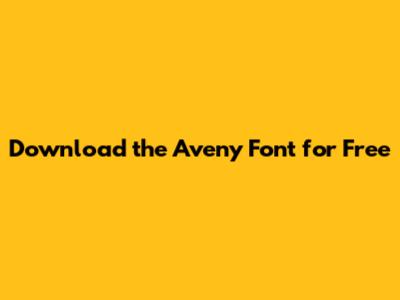
Hey design enthusiasts, gather 'round! Today, we're diving deep into the world of typography to talk about a font that's been making waves: the Aveny font. If you're on the hunt for that perfect typeface to elevate your next project, you're in the right place, guys. We're going to explore what makes Aveny so special, where you can snag it for free, and how to use it like a pro. Get ready to boost your design game with this gorgeous font!
What's So Great About the Aveny Font?
So, what's the big deal with the Aveny font? Well, let me tell you, this font is a real showstopper. It's a sans-serif typeface, which means it's clean, modern, and super versatile. Think elegant lines, a slightly geometric feel, and just the right amount of personality. The Aveny font is perfect for a wide range of applications, from branding and logos to website design, editorial layouts, and even social media graphics. It strikes a fantastic balance between being highly readable and having a distinct visual appeal. The letterforms are well-balanced, with excellent spacing and kerning, ensuring that your text looks polished and professional, no matter the size.
One of the things I personally love about Aveny is its subtle humanist touches. While it leans towards a modern, geometric style, there are these little quirks in the letterforms that give it a warm, approachable feel. This blend of precision and warmth is what makes it stand out from a sea of generic sans-serifs. It’s not too stiff, not too playful, but hits that sweet spot that designers are always looking for. Whether you're designing a sleek corporate brochure or a trendy fashion blog, Aveny has the flexibility to adapt. Its clear structure ensures legibility even in smaller sizes, making it a reliable choice for body text, while its unique character shines through in headlines and display text. The availability of various weights, often including light, regular, bold, and black, further enhances its versatility, allowing for sophisticated typographic hierarchies within your designs.
The design philosophy behind the Aveny font appears to be rooted in creating a typeface that is both aesthetically pleasing and highly functional. The designers have clearly put a lot of thought into the details, resulting in a font that feels both contemporary and timeless. It avoids common pitfalls like being too condensed or too wide, offering a comfortable reading experience across different mediums. The punctuation marks are also thoughtfully designed, complementing the overall style without detracting from the text. This attention to detail is crucial for designers who need a reliable tool that performs well under various constraints. For instance, when working on responsive web design, a font like Aveny that maintains its integrity across different screen sizes is invaluable. Its clean lines render beautifully on high-resolution displays, and its excellent readability ensures that users can consume content comfortably on mobile devices. This makes the Aveny font a smart investment for any digital project.
Furthermore, the Aveny font often comes with a good character set, meaning it supports a wide array of languages and special characters. This is a huge plus for designers working on international projects or needing to include specific symbols in their designs. It’s the kind of font that you can rely on to get the job done, beautifully and efficiently. The overall impression of Aveny is one of sophistication, clarity, and modern elegance. It's a typeface that speaks to a discerning audience, conveying a sense of quality and attention to detail. This makes the Aveny font an excellent choice for brands that want to project an image of professionalism and contemporary style. Its adaptability means it can be dressed up or down, making it suitable for luxury brands, tech startups, creative agencies, and more. The consistency in its design across all characters ensures a harmonious visual rhythm, which is essential for any well-crafted typographic composition. The geometric underpinnings provide structure, while the subtle imperfections add character and approachability, making it a truly unique offering in the sans-serif market.
How to Use the Aveny Font in Your Designs
Now that you've got the awesome Aveny font downloaded, let's talk about how to make it shine in your projects. This is where the real fun begins, guys! The versatility of the Aveny font means it can be used in countless ways to enhance your visual communication.
Headlines and Titles:
This is where Aveny truly excels. Its clean lines and modern aesthetic make it perfect for eye-catching headlines. Use a bold or black weight for maximum impact. Pairing it with a lighter weight of the same font for subheadings creates a beautiful typographic hierarchy. For example, imagine a striking "Discover" in Aveny Black, followed by a concise explanation in Aveny Regular. It’s clean, sophisticated, and immediately draws the reader’s attention. Don't be afraid to experiment with letter spacing (kerning) to fine-tune the look of your headlines. For titles, consider using all caps for a more commanding presence or sentence case for a friendlier feel. The geometric nature of Aveny lends itself well to modern layouts, making headlines pop without feeling cluttered. The distinct character of Aveny ensures your titles are not just readable but memorable.
Branding and Logos:
The Aveny font is a fantastic choice for building a strong brand identity. Its clean, professional, and slightly distinctive look can give your logo a timeless appeal. For a minimalist brand, a simple wordmark using Aveny could be incredibly effective. Consider using Aveny in its regular or medium weight for a balanced logo. If you need more flair, explore using it in conjunction with a graphic element or perhaps in a unique color. Its sans-serif nature makes it highly adaptable for various applications, from business cards to large-scale signage. The legibility of Aveny ensures that your brand name is easily recognized and remembered. Brands aiming for a modern, trustworthy, and sophisticated image will find the Aveny font to be an invaluable asset. Think about how the letterforms interact – the clean curves and straight lines can convey a sense of stability and innovation.
Body Text:
While Aveny shines in headlines, it's also surprisingly capable as body text, especially in its lighter weights. The excellent readability of the Aveny font, thanks to its balanced letterforms and generous spacing, makes it suitable for longer passages of text. Use Aveny Regular or Light for body copy in articles, blog posts, or website content. It provides a clean, uncluttered reading experience that keeps your audience engaged. Avoid using the very heavy weights for extended reading, as this can strain the eyes. Instead, use the lighter weights for a softer, more approachable feel. The consistency of the design means that even paragraphs set in Aveny will maintain a professional and cohesive look. For web design, Aveny's clear rendering on screens is a significant advantage, ensuring your content is accessible and pleasant to read across devices. Its clean structure ensures minimal distraction, allowing the content itself to take center stage.
Web and UI Design:
In the digital realm, the Aveny font is a solid performer for web and UI design. Its clean, sans-serif structure ensures it scales well across different screen sizes and resolutions. Use Aveny for website headlines, navigation menus, button labels, and even body text. Its modern feel aligns perfectly with contemporary web aesthetics. The key is to establish a clear typographic hierarchy using different weights and sizes of Aveny. For example, use a heavier weight for navigation links and a lighter weight for descriptive text. This improves user experience by making information easy to scan and digest. Consider its performance on various devices; Aveny's legibility remains high on both desktops and mobile screens. This makes the Aveny font a go-to choice for creating user-friendly and visually appealing interfaces. Ensure you're using web-optimized versions if available, as they are specifically designed for fast loading and clear display in browsers.
Pairing with Other Fonts:
While Aveny is fantastic on its own, pairing it with other fonts can create even more dynamic designs. As a modern sans-serif, it pairs well with a variety of typefaces. Consider pairing Aveny with a classic serif font for a sophisticated contrast, perfect for editorial design or more formal branding. Think Aveny headlines with body text in a font like Garamond or Times New Roman. Alternatively, pair Aveny with another clean sans-serif that has a different personality – perhaps one that is more geometric or more condensed – to create subtle variations within a design system. For a more playful vibe, you could even pair it with a unique script or display font for accent text. The key is to ensure contrast and harmony. The chosen partner font should complement Aveny without competing with it. Experiment with different combinations to find what best suits the mood and message of your project. Remember, the goal is to enhance, not confuse, so choose pairings that maintain clarity and readability while adding depth to your design.
Tips for Using Aveny Effectively
To truly master the Aveny font, here are a few extra tips, guys:
• Hierarchy is Key: Use different weights (Light, Regular, Bold) and sizes to guide the reader's eye. This is crucial for both print and web design.
• Spacing Matters: Pay attention to kerning (space between specific letter pairs) and tracking (overall letter spacing). Aveny generally has good default spacing, but fine-tuning can make a big difference, especially in headlines.
• Consistency is Crucial: Stick to the chosen weights and styles throughout your project for a cohesive look. Don't randomly mix too many variations.
• Context is Everything: Consider the overall tone and message of your design. Aveny is modern and clean, so it works best with designs that reflect similar qualities.
So there you have it! The Aveny font is a versatile, stylish, and accessible typeface that can seriously level up your design game. Go ahead, download it, play with it, and create something amazing. Happy designing, everyone!